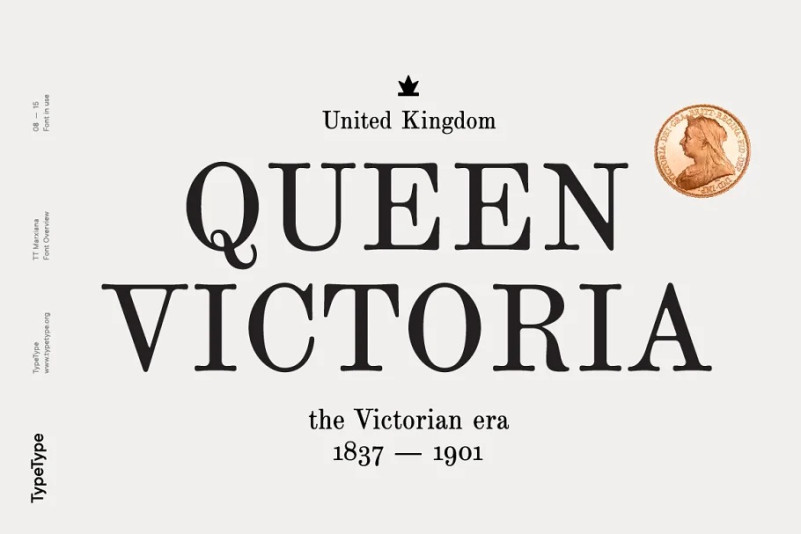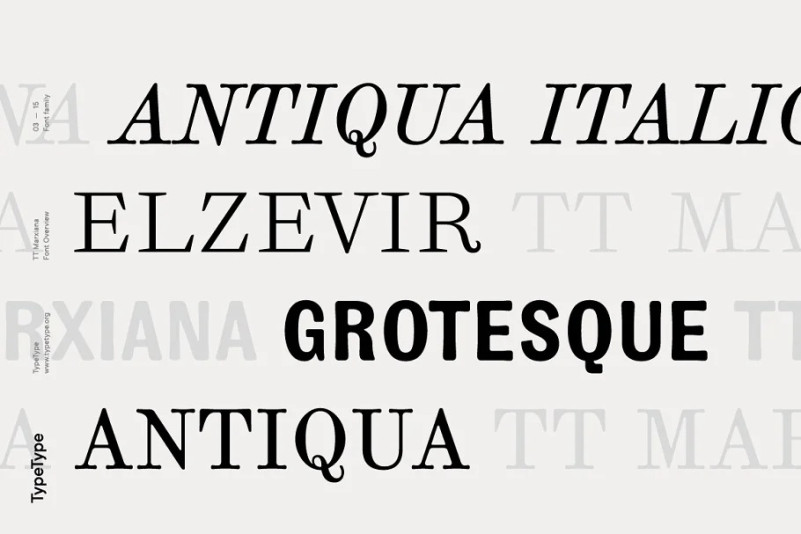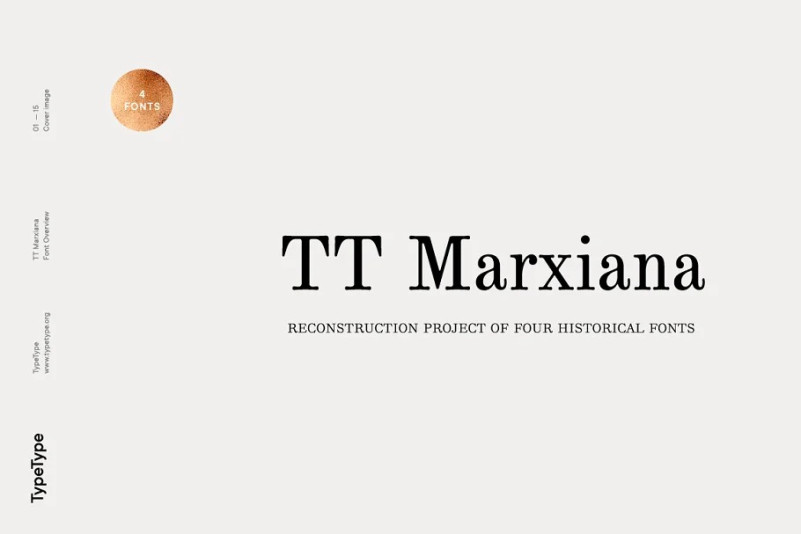
TT Marxiana Font
TT Marxiana Font is a project to reconstruct a set of pre-revolutionary fonts that were used in the layout of the “Niva” magazine, published by the St. Petersburg publishing house A.F. Marx. In our project, we decided to focus on a specific set of fonts that were used in the preparation and printing of the “Niva” magazine in 1887, namely its Antiqua and Italic, Grotesque and Elzevir.
As part of the TT Marxiana project, we sought to adhere to strict historicity and maintain maximum proximity to the paper source. We tried to avoid any “modernization” of fonts, unless of course we consider this to be kerning work, the introduction of OpenType features and creation of manual hinting. As a result, with the TT Marxiana font family, a modern designer gets a full-fledged and functional set of different fonts, which allows using modern methods and using modern software to create, for example, a magazine in a design typical of the late 19th century.
The TT Marxiana project started in the late summer of 2018 and from the very beginning went beyond the traditional projects of TypeType because of the importance of preserving the historical identity. Since up to this point, we had never before reconstructed the font from historical paper sources and with such a level of elaboration and attention to detail, it took us two years to implement this project. You can read more about all stages of the project in our blog, and here we will briefly talk about the result.
As it turned out, drawing a font following the scanned pages of a century-old magazine is a very difficult task. In fact, such a font reconstruction very much resembles archaeological excavations or solving a complex cipher, and all these efforts are needed only in order to finally understand what steps need to be taken so that the resulting font is not just an antiqua, but the specific and accurate antiqua from “Niva” magazine.
In addition, due to the specifics of printing, same characters in the old magazine setting looked completely different, which greatly complicated the task. In one place, there was less ink than needed, and the letter in the reference was not well-printed and thin, in some other place there was more ink and the letter had flooded. An important task was to preserve and convey this feeling of typographic printing, but at the same time it was important to identify the common logic and character of the dot gains so that the font would form a harmonious, single, but at the same time lively picture.
Since the “Niva” magazine was historically published in Russian, the magazine had no shortage of references for the reconstruction of Cyrillic characters, but there were not many Latin letters in the magazine at all. In addition, the paper source lacked a part of punctuation, diacritics, there were no currency signs nor ligatures at all — we developed all these characters based on font catalogs of the 19–20 centuries, trying to reflect characteristic details from the main character composition to the max. So, for example, the Germandbls character, which is not in the original “Niva” set, we first found in one of the font catalogs, but still significantly redesigned it.
We decided that in such a voluminous project, only graphic similarities with the original source are not enough and we came up with a feature that can be used to exchange modern Russian spelling for pre-revolutionary spelling. When this feature is turned on, yat and yer appear in the necessary places (i, ѣ, b, ѳ and ѵ), the endings of the words change, and so appears a complete sensation of the historical text. This feature works in all fonts of the TT Marxiana font family.
TT Marxiana Antiqua is a scotch style serif, the drawing of which carefully preserved some of the artifacts obtained by printing, namely dot gain, a slight deformation of the letters and other visual nuances. TT Marxiana Antiqua has an interesting stylistic set that imitates the old setting and in which some of the signs are made with deliberate sticking or roughness. Using this set will provide an opportunity to further simulate the setting of that great time.
TT Marxiana Grotesque is a rather thick and bold old grotesk. Its drawing also maximally preserved the defects obtained during printing and characteristic of its paper reference. In addition to pre-revolutionary spelling, TT Marxiana Grotesque has a decorative set with an inversion. This is a set of uppercase characters, numbers and punctuation, which allows you to type inverse headers, i.e. print white on black. As a result of using this set, you get the text against black bars — this way of displaying was very characteristic for print advertising at the turn of the century. In addition, about 30 decorative indicator stubs were drawn for this set: arrows, hands, clubs, etc.
TT Marxiana Elzevir is a title or header font and is a compilation of monastic Elzevir that were actively used in the “Niva” magazine for all its prints. Unlike the antiqua, TT Marxiana Elzevir has sharper forms, and the influence of deformations from typographic printing is not as noticeable in the forms of its signs. This is primarily due to the specifics of its drawing and the fact that it was usually used as a heading font and was printed in large sizes. The height of the lowercase and uppercase characters of Elsevier is the same as the heights of the antiqua, but the font is more contrasting and lighter, it has a lot of white and, unlike the antiqua and the grotesque, there are a lot of sharp corners. An exclusive feature of the TT Marxiana Elzevir is an alternative set of uppercase characters with swash.